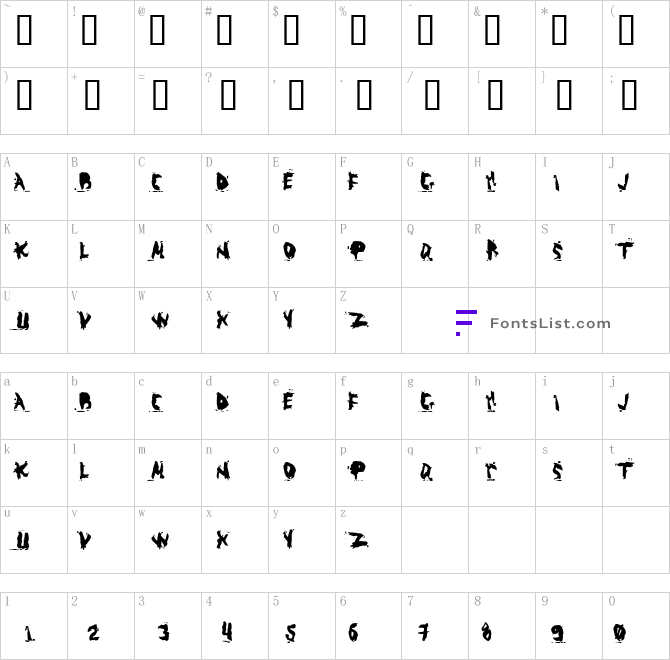
- Font Name:ABUSO
ABUSO.ttf is a very beautiful artistic font, ABUSO.ttf is widely used in the design and printing of various books and pictures,ABUSO.ttf has a strong visual impact,ABUSO.ttf is a commonly used font in newspapers, magazines and books, and is used in posters, e-commerce Poster design, store design, logo design, font design and other fields.ABUSO.